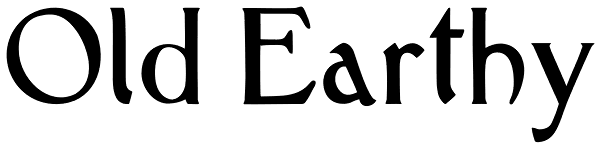
Old Earthy
Old Earthy is a hand drawn font inspired by the mid 19th-century art movement with William Morris and the Pre-Raphaelite Brotherhood in the front line. The art and the patterns from that time is reflected in Old Earthy. It comes with a set of basic...